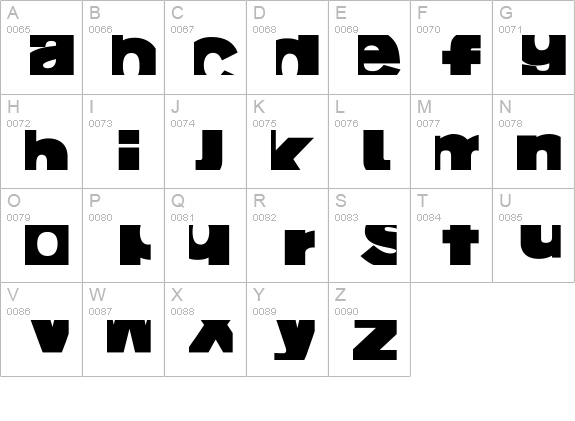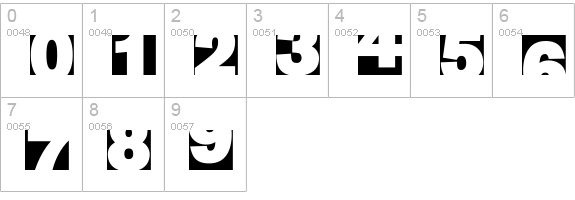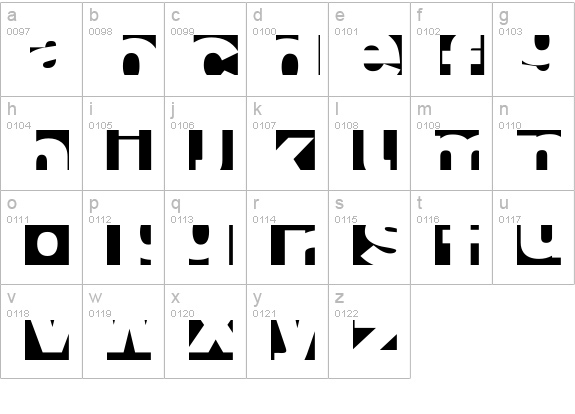
AIFragment Font Details
AIFragment font is a modern and edgy typeface designed to make your projects stand out. With its sharp edges and unique design, this font is perfect for creating eye-catching headlines, logos, and branding materials. The geometric shapes and clean lines of AIFragment font add a contemporary touch to any design. Best of all, AIFragment font is available for free download at FontsMarket.com. Whether you're a graphic designer, a creative professional, or just looking to add a fresh look to your projects, AIFragment font is a versatile and stylish choice. Download it today and elevate your designs with this sleek and dynamic font.